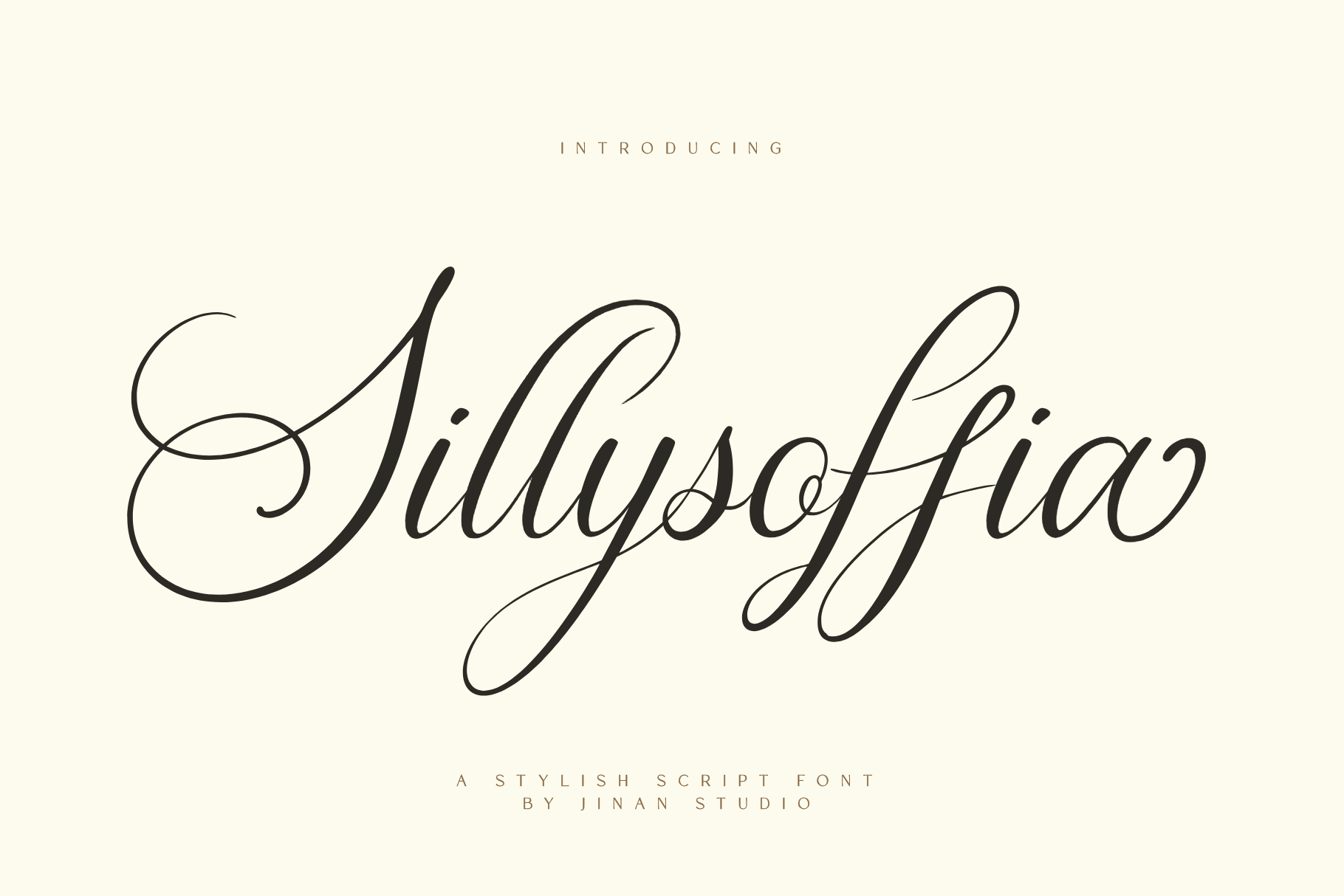
Sillysoffia Script Font
Introducing Sillysoffia – a stunning script font that effortlessly blends beauty and style. Perfect for weddings, Valentine's Day, or any project needing a romantic touch. With plenty of alternate characters to choose from, you can easily customize your designs. And with multilingual support, Sillysoffia welcomes creators from all around the globe. Add a touch of love and sophistication to your designs with Sillysoffia font.
- A set of uppercase and lowercase glyphs
- Number, symbol, and punctuation
- Alternates and ligatures